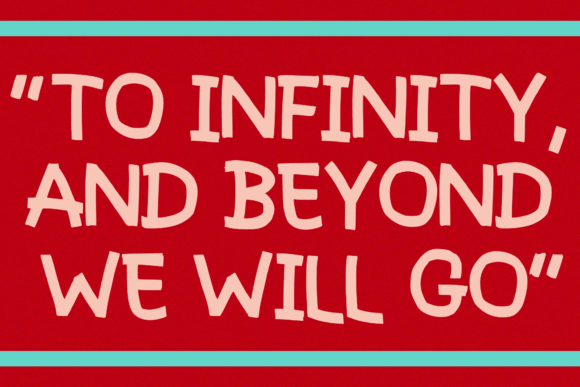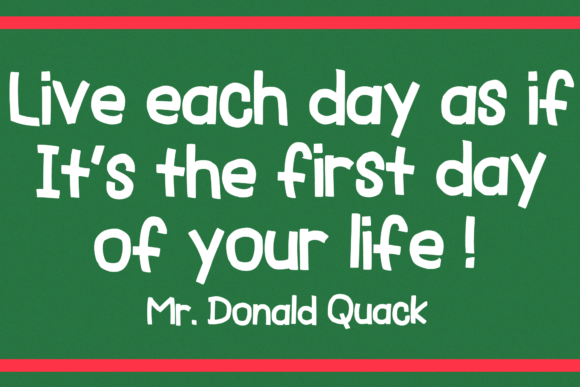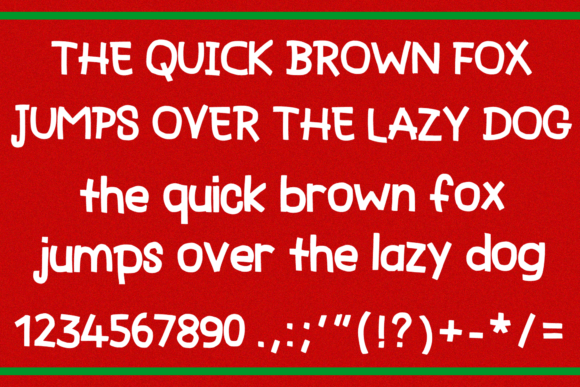
Introducing Grinchan Font: The Ultimate Holiday Decorator for Designers and Crafters
Are you a designer or crafter looking for a fun and versatile font to add a touch of whimsy to your holiday designs? Look no further than Grinchan Font! This delightful font is perfect for creating a wide range of designs, from spooky Halloween decorations to joyful Christmas cards and everything in between.
What Makes Grinchan Font So Special?
Grinchan Font is a unique and playful font that is sure to capture the spirit of the holiday season. Its incredibly versatile style makes it perfect for use on a variety of design projects, including:
- T-shirts and hoodies: Add a fun and festive touch to your holiday apparel with Grinchan Font.
- Kids’ book designs: Bring your children’s stories to life with the playful and imaginative style of Grinchan Font.
- Greeting cards: Create one-of-a-kind holiday cards that are sure to delight friends and family.
- Stickers and posters: Add a pop of personality to your holiday decorations with Grinchan Font.
Why Designers and Crafters Love Grinchan Font
So, what sets Grinchan Font apart from other fonts on the market? Here are just a few reasons why designers and crafters are falling in love with this delightful font:
- Fun and playful style: Grinchan Font has a unique and whimsical style that is sure to add a touch of personality to your designs.
- Versatility: Whether you’re creating designs for Halloween, Christmas, or any other holiday, Grinchan Font is the perfect choice.
- Ease of use: Grinchan Font is easy to read and use, making it perfect for designers and crafters of all skill levels.
Tips for Using Grinchan Font in Your Designs
Now that you’ve fallen in love with Grinchan Font, here are a few tips for using it in your designs:
- Experiment with different colors: Grinchan Font looks great in a variety of colors, so don’t be afraid to get creative and try out different hues.
- Pair with other fonts: Grinchan Font pairs well with a variety of other fonts, so try combining it with other fonts to create a unique and interesting design.
- Add fun and playful graphics: Grinchan Font is perfect for use with fun and playful graphics, such as Halloween and Christmas-themed illustrations.